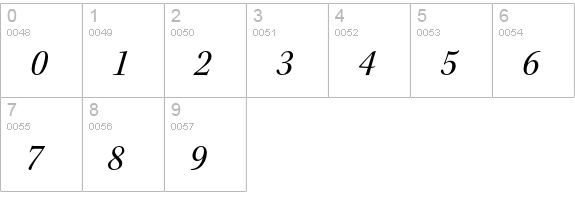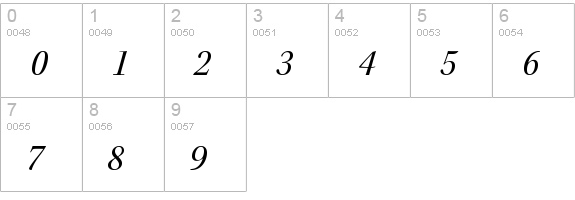
Kepler Std Semicondensed Italic Subhead Font Details
Kepler Std Semicondensed Italic Subhead is a distinctive, italic variant in the Kepler typeface family \xE2\x80\x94 well suited to design and typography projects.
Kepler Std Semicondensed Italic Subhead font is a sleek and modern typeface that adds a touch of sophistication and elegance to any design. With its semi-condensed structure, this font allows for efficient use of space without sacrificing readability. The italicized variant of Kepler Std Semicondensed Subhead font adds a subtle flair to the typography, creating a sense of movement and dynamic energy. It is perfect for emphasizing important subheadings, titles, or any text that requires a touch of emphasis. The smooth curves and clean lines of Kepler Std Semicondensed Italic Subhead font make it highly versatile, suitable for various design projects, from branding and editorial design to website headers and product packaging. Its legibility and modern aesthetic ensure that your message is conveyed with clarity and style. What's more, Kepler Std Semicondensed Italic Subhead font is freely available to download at FontsMarket.com. This means that you can easily access and utilize this font for personal or commercial projects without any hassle. Whether you are a professional designer or a hobbyist, this font provides a valuable resource that can elevate your designs to the next level. So why wait? Enhance your designs with the sleek and elegant Kepler Std Semicondensed Italic Subhead font. Download it for free at FontsMarket.com and unlock a world of possibilities for your creative projects.